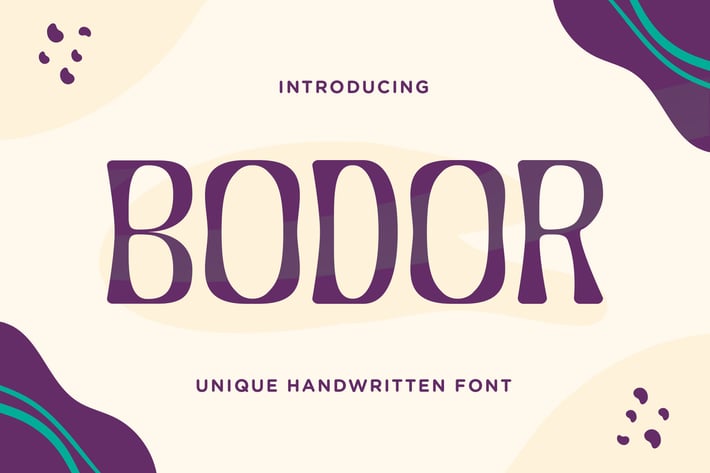
Bodor – Unique Handwritten Font
Bodor is unique font that you can add it to your most creative ideas and notice how it makes them come alive!
You can use this font on wedding invitations, thank you cards, quotes, greeting cards, logos, business cards and every other design which needs a simple and fun touch.